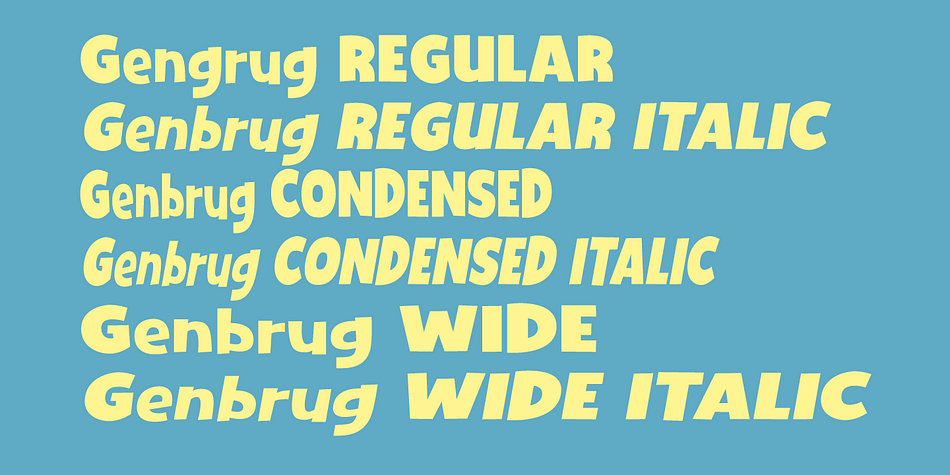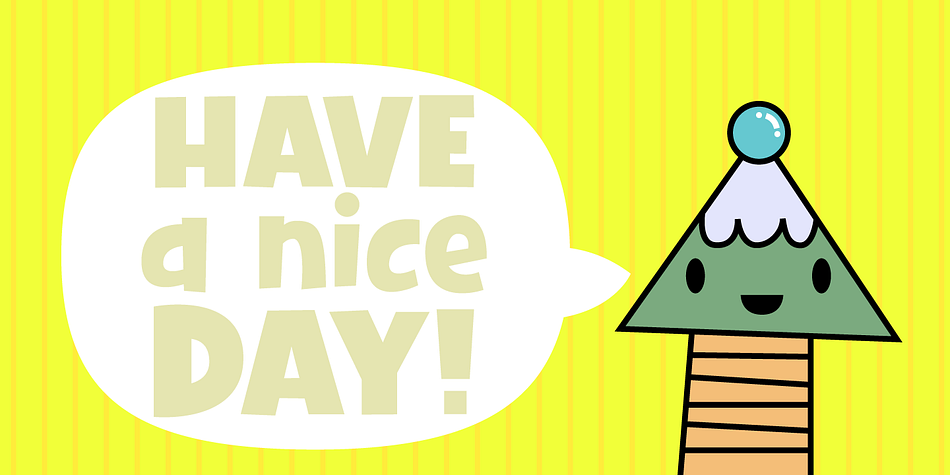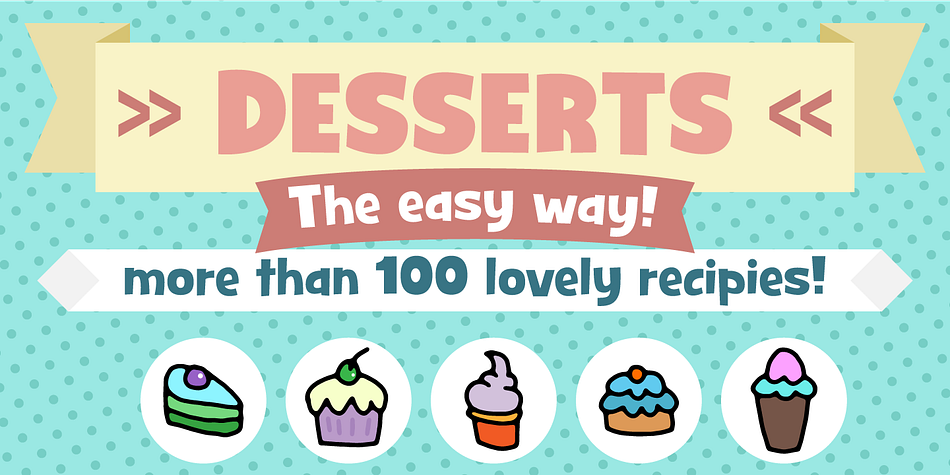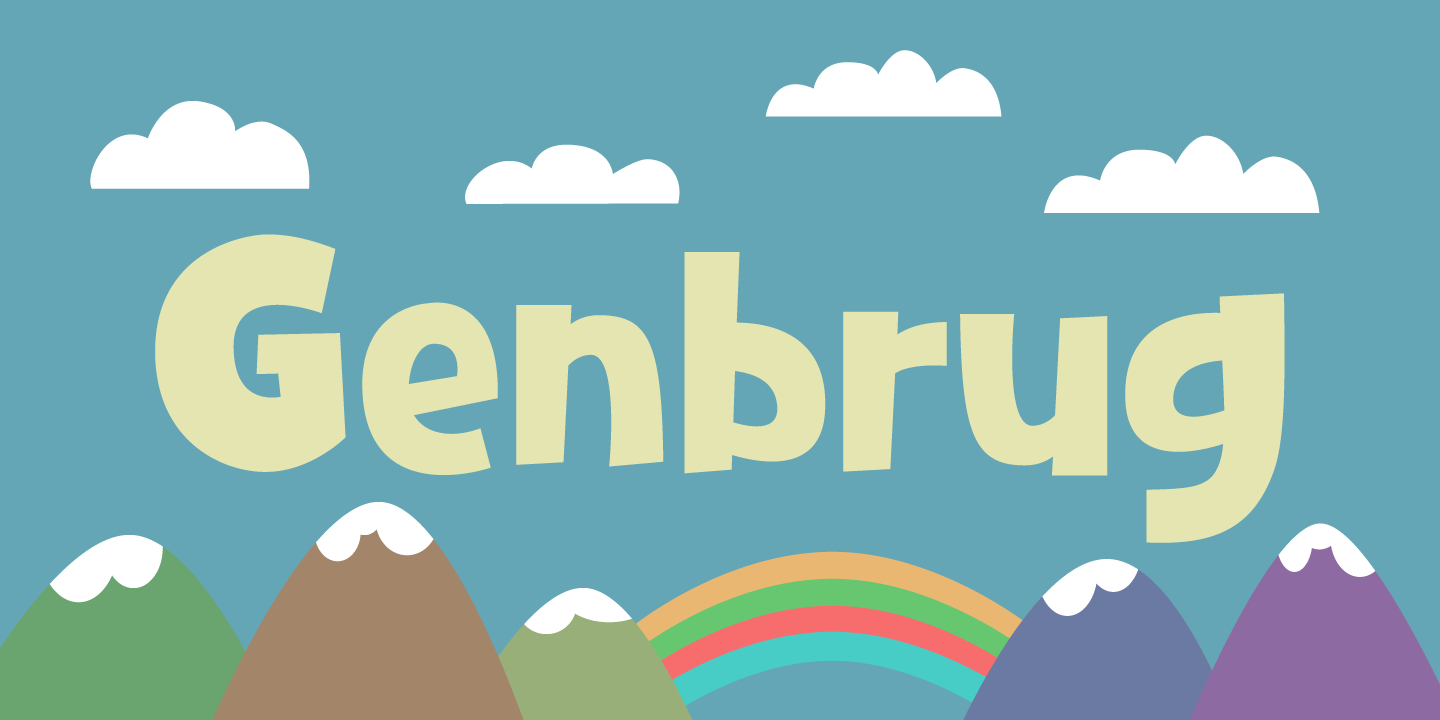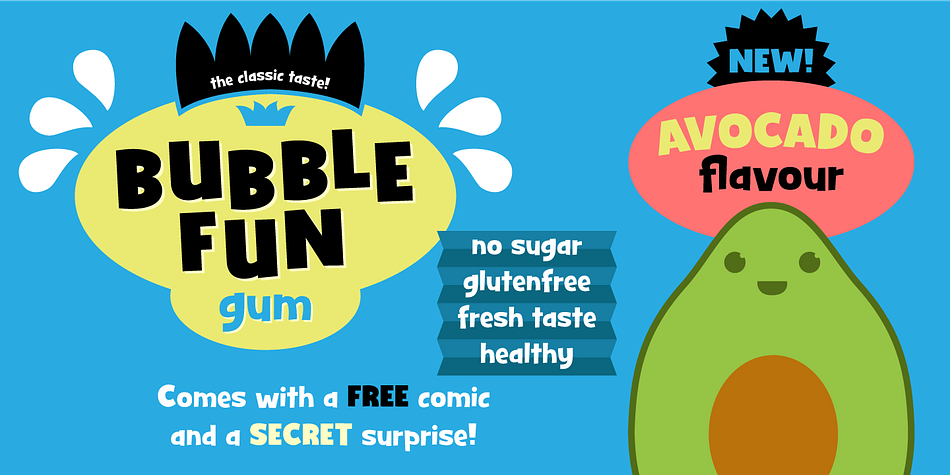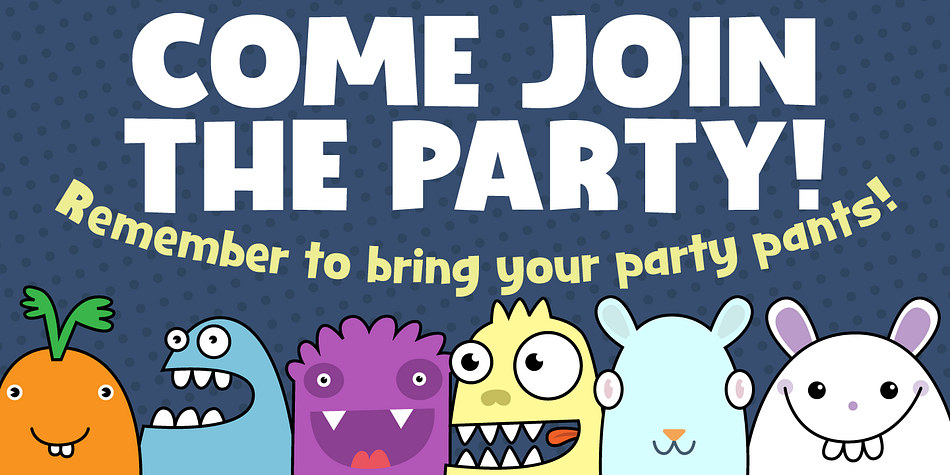
Designed by Jakob Fischer, Genbrug is a comic and kids font family. This typeface has six styles and was published by Pizzadude.dk.
One of those very legible and cool comic fonts!